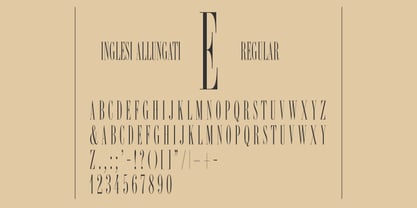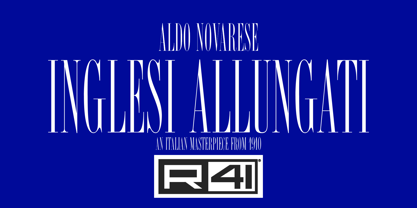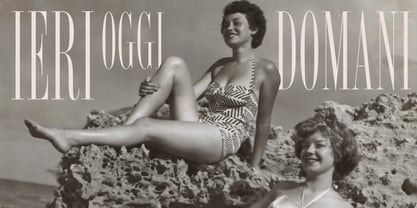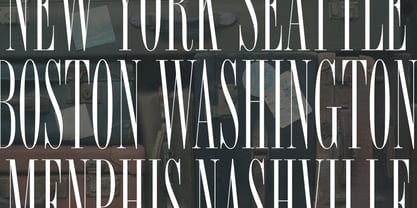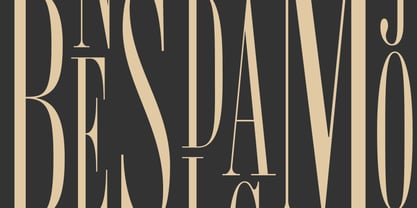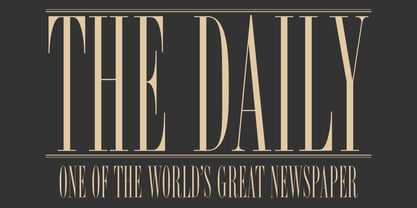
R41 Inglesi Allungati
At the close of the 19th century, the surge in commercial and advertising printing, in contrast to book printing, necessitated typefaces with striking contrast to capture attention, exemplified by the bold neoclassical Norman style. Newspapers, constrained by space, favored narrow or very narrow characters for sub-headings, leading to the rise of the so-called narrow and elongated Bodonian (caratteri allungati) typefaces. Inglesi Allungati emerged from this demand: initially released as an alphabet featuring both uppercase and lowercase letters in the early 1900s, it was later refined into a purely uppercase alphabet, remaining in this form until it was phased out of the Nebiolo catalog around 1960. R41 Inglesi Allungati is an exceptionally elegant font, perfect for titles and subtitles that require immediate attention with a touch of sophistication.